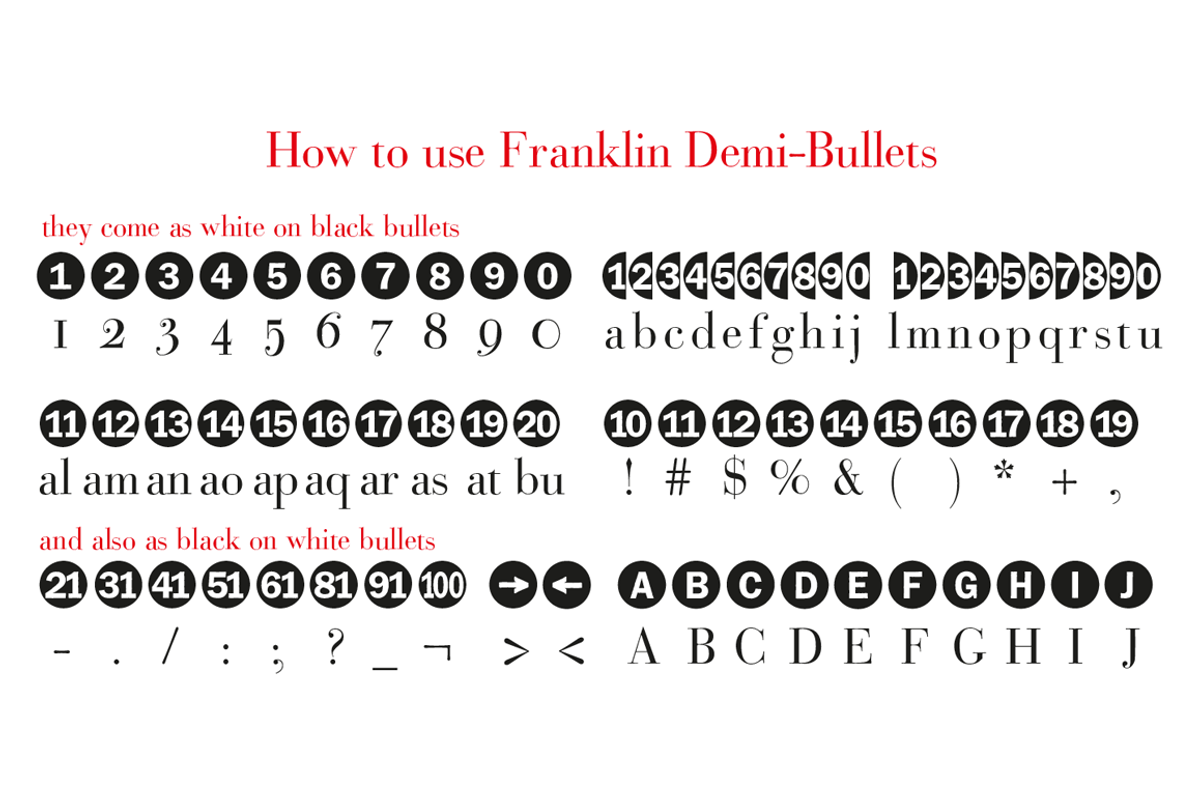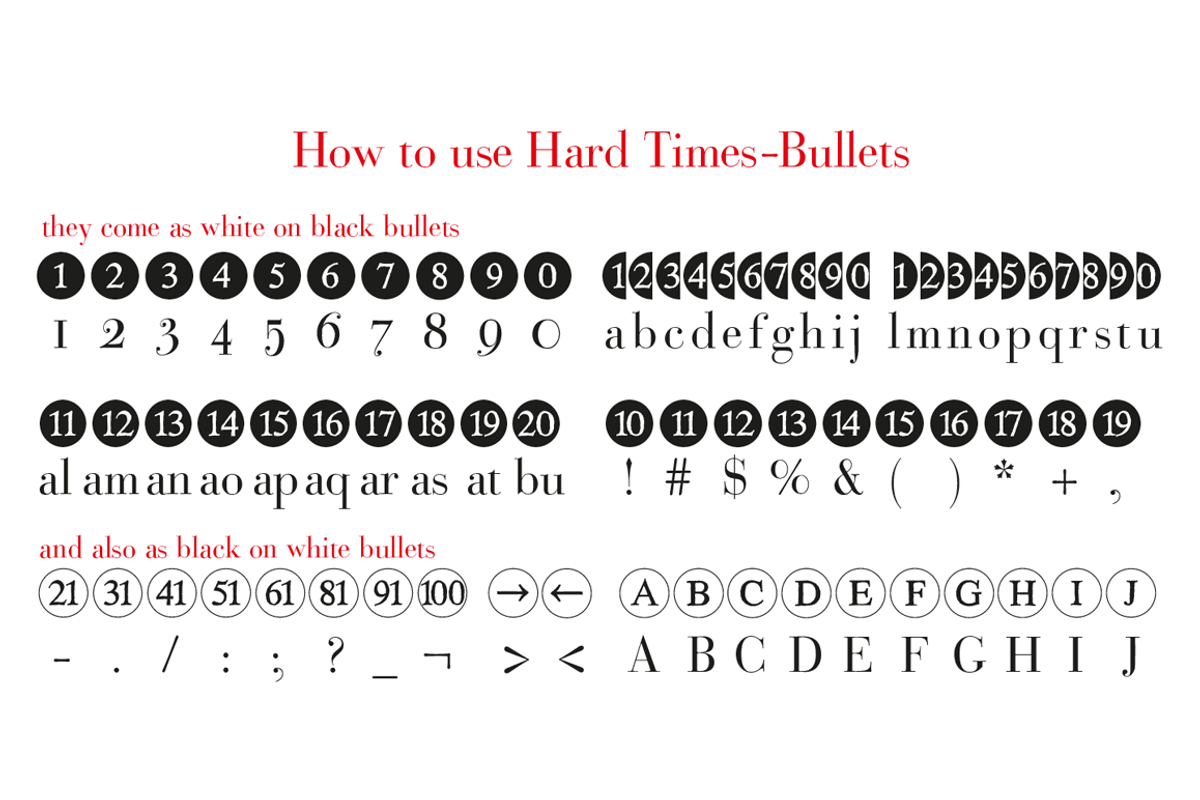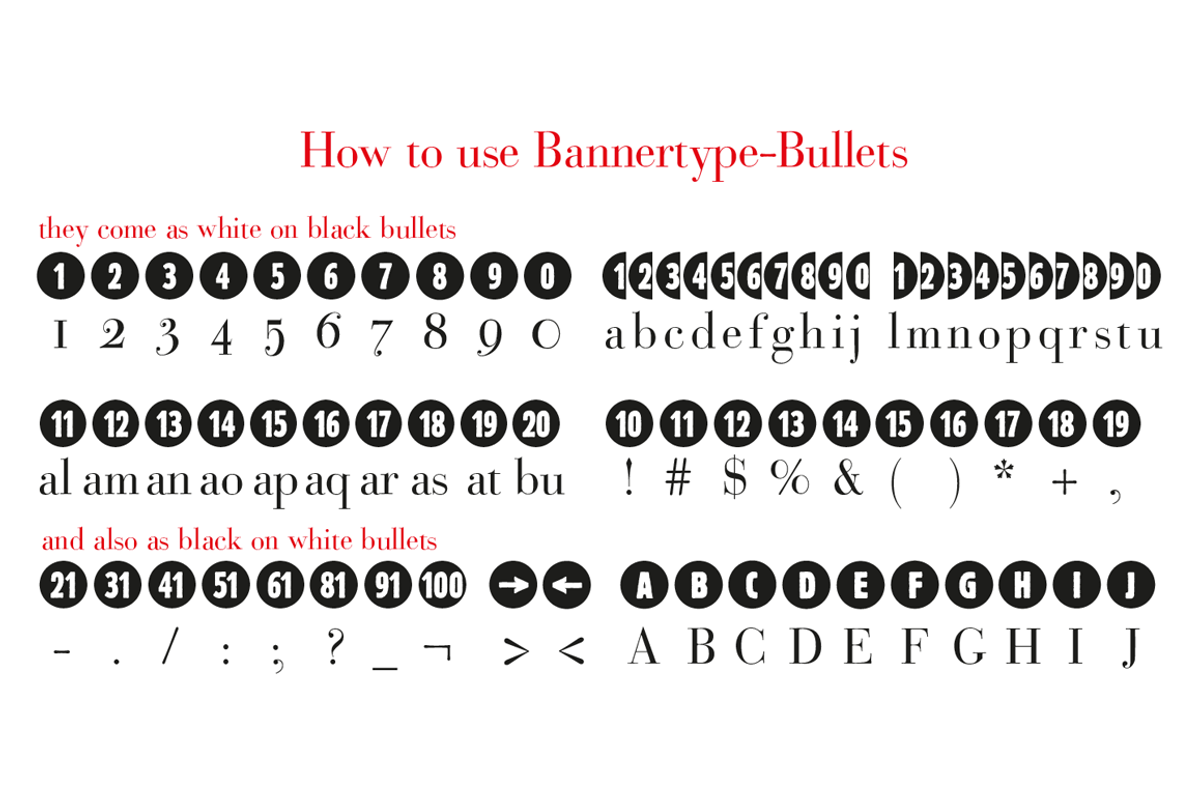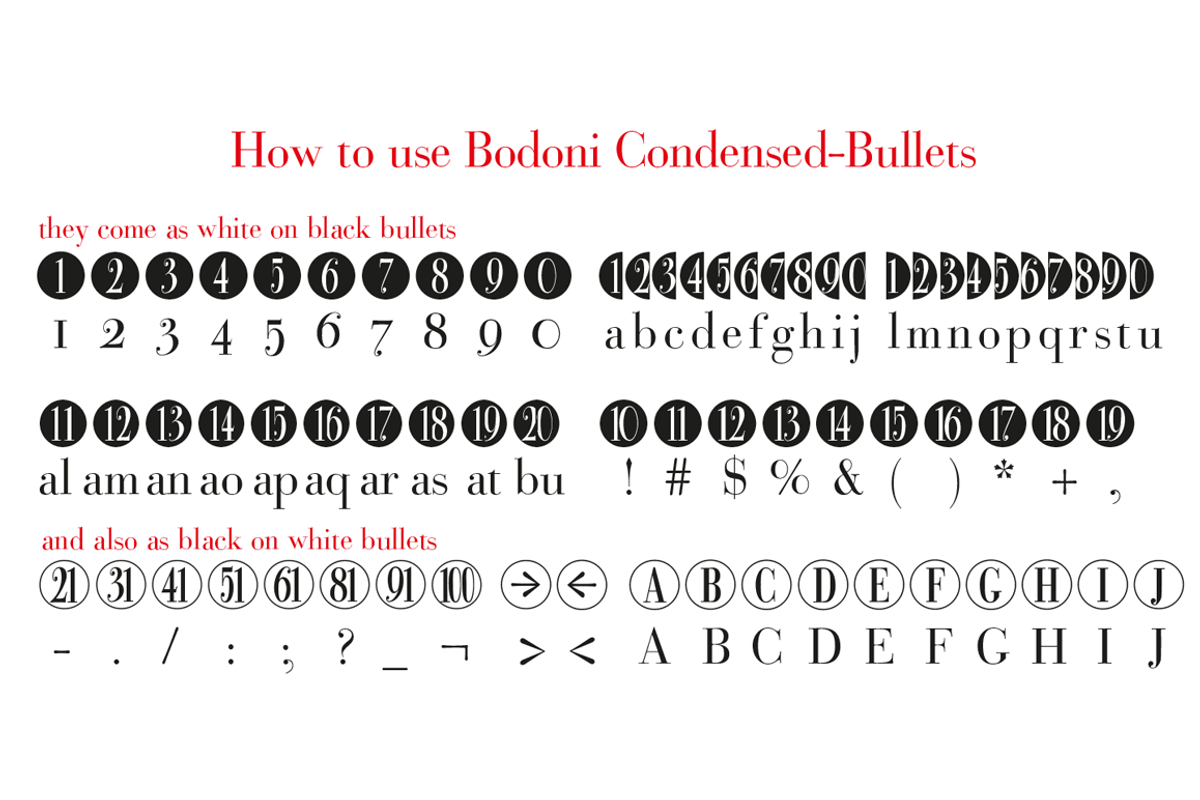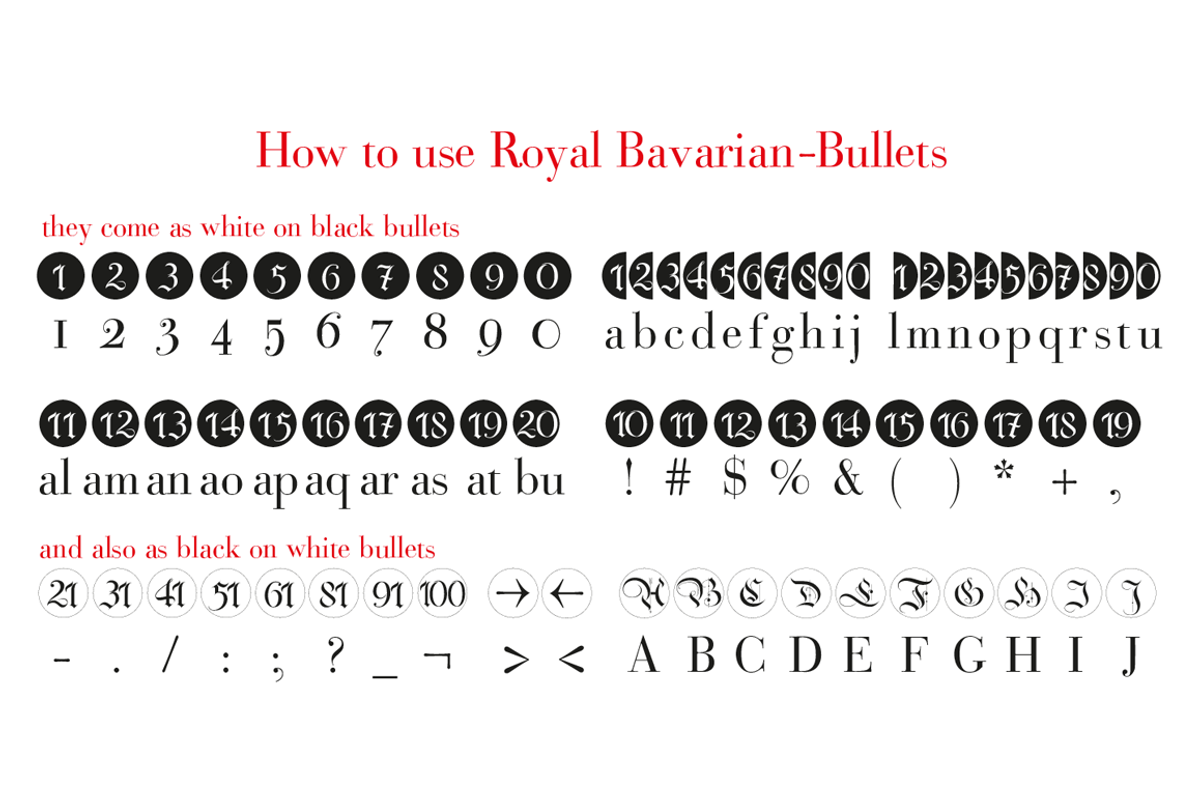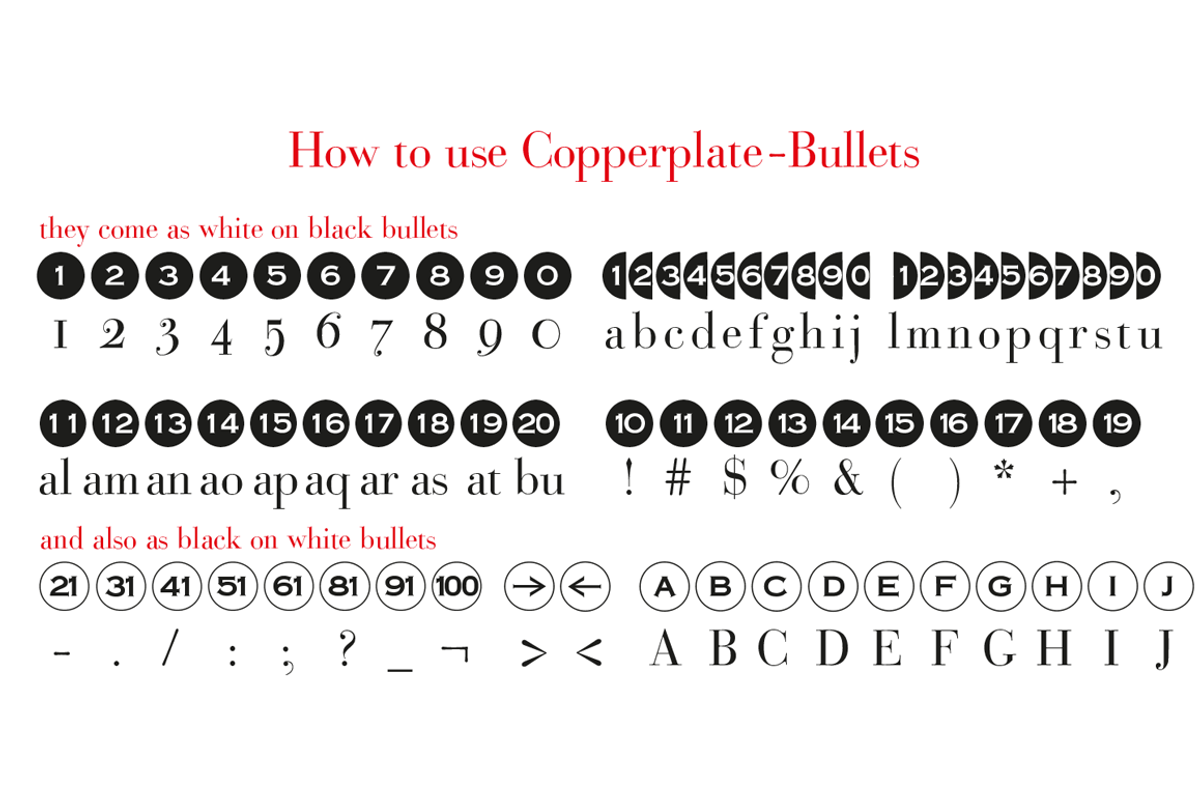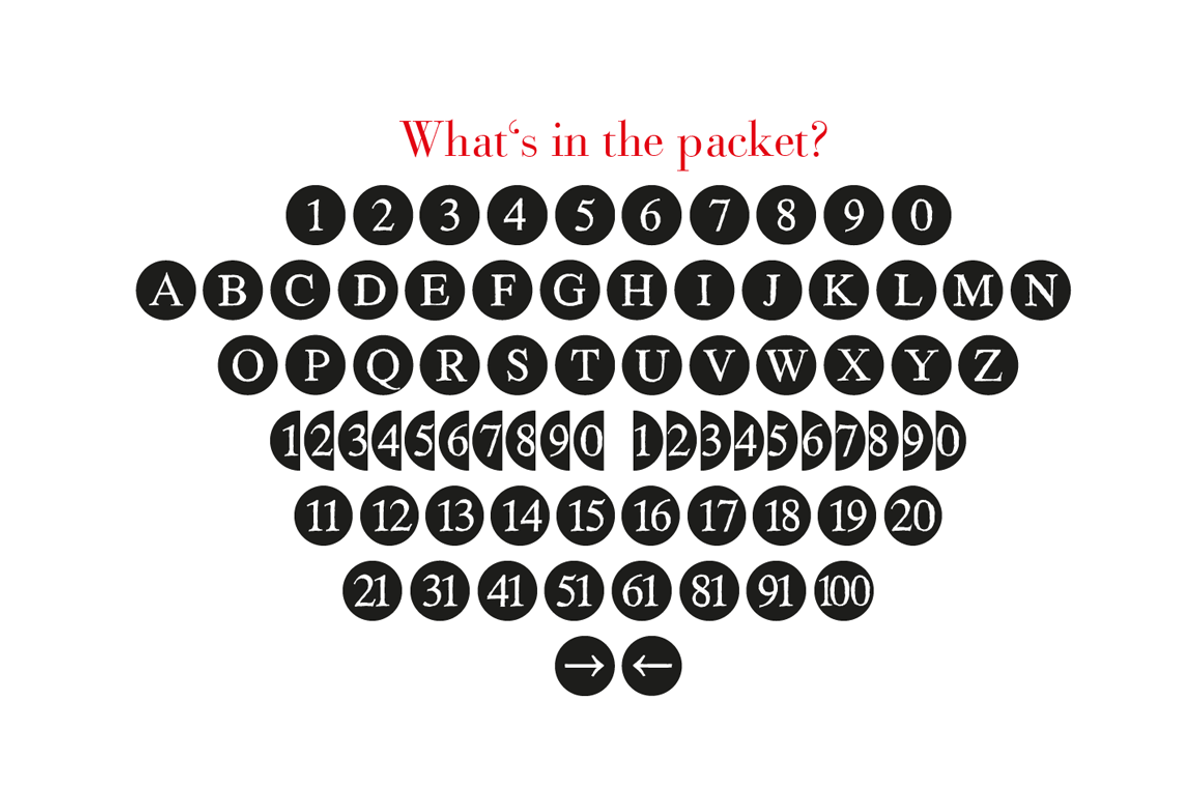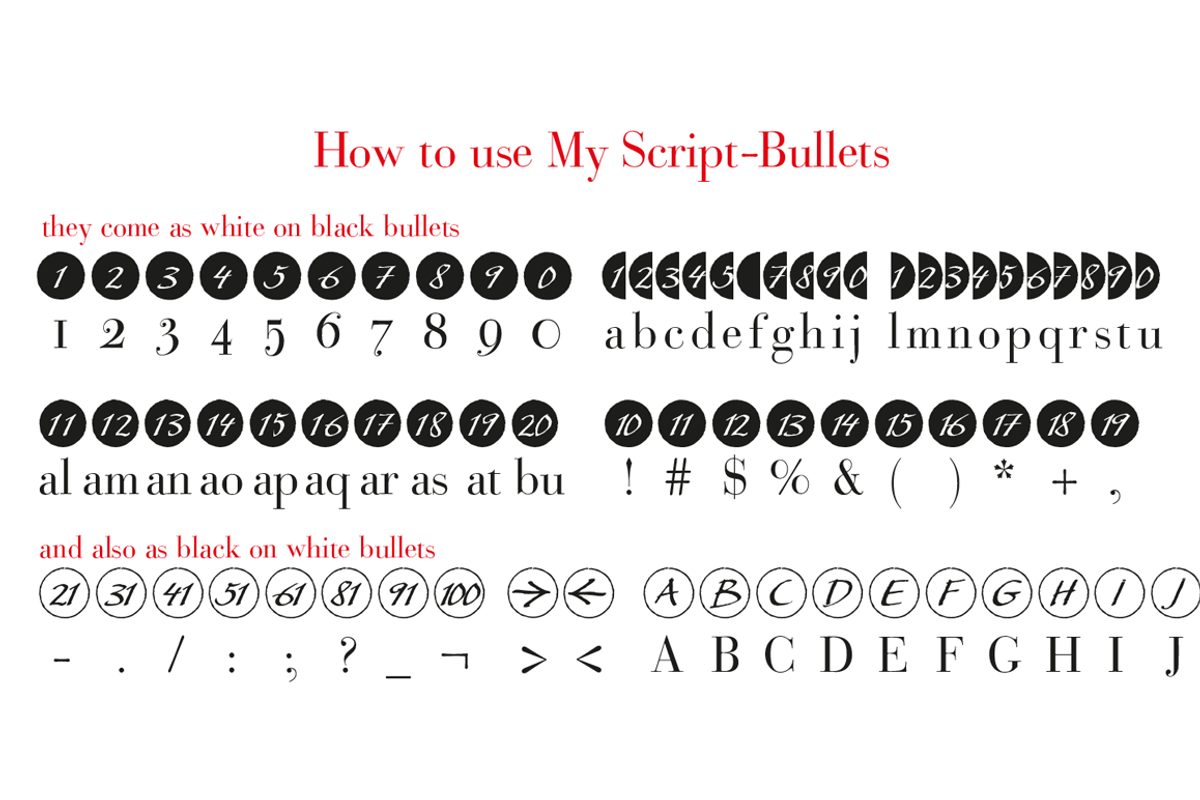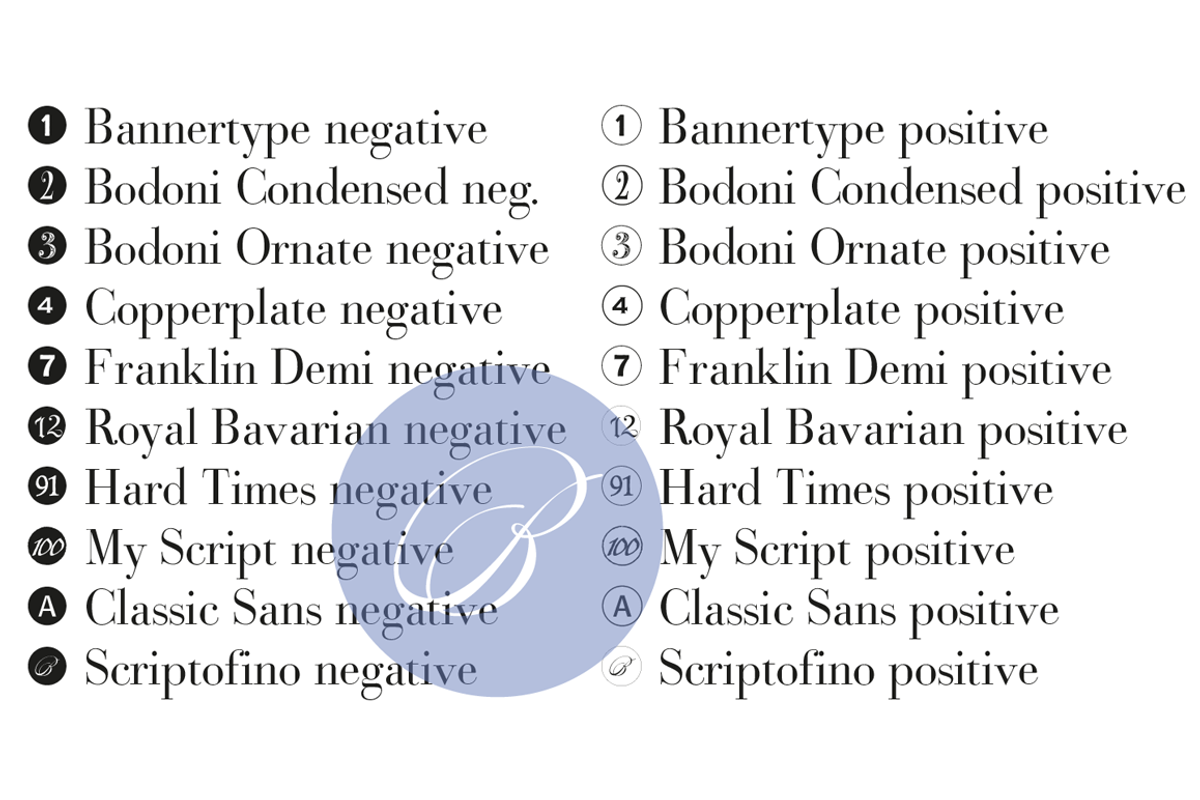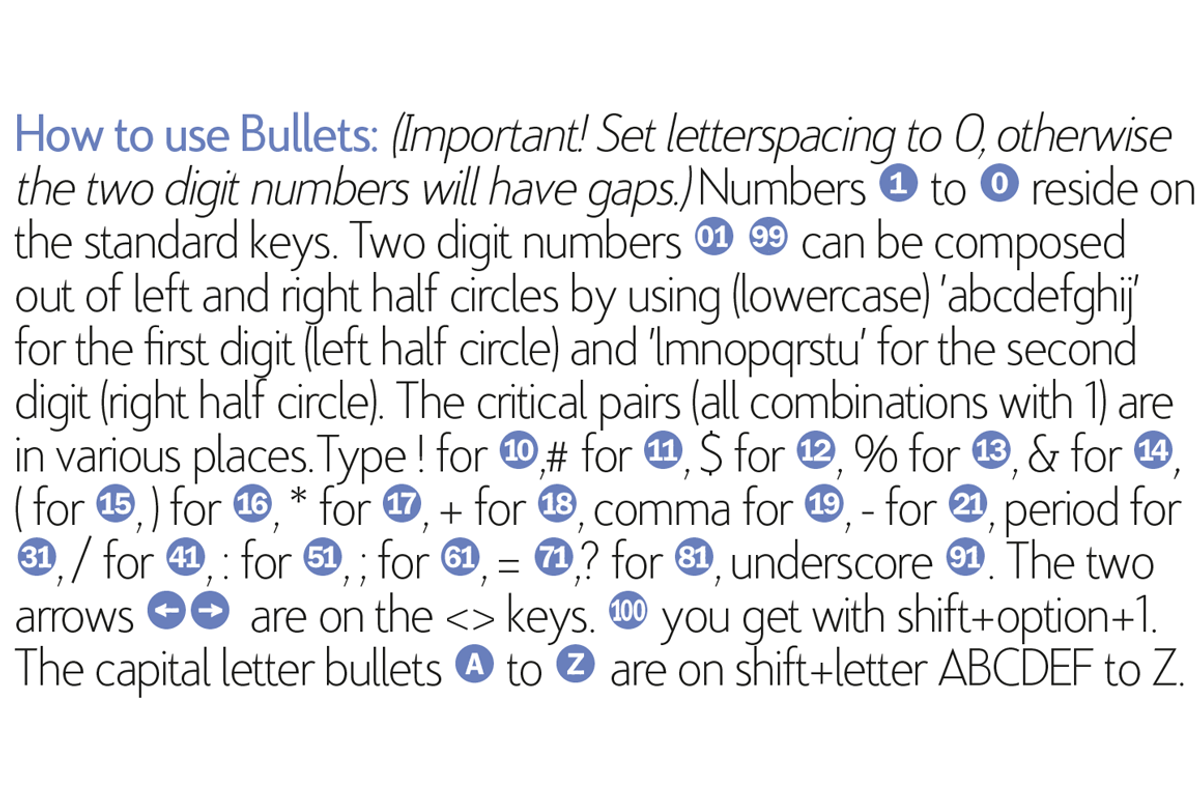
Bullets
BulletNumbers come in very handy for all kinds of lists that don't exceed 100 categories. I have long since been using my own Bullets in positive and negative and four styles, serif, sans, engravers and script, a fitting one for every occasion. Now I added six more designs and perfected the Bullets for all of you.
The following is a »must read«!
Here is how to use them: (Important! Set letterspacing to '0', otherwise the two digit numbers will have gaps!!!) The numbers 1-0 reside on the standard keys. Two digit numbers 01-99 can be composed out of left and right half circles by using (lowercase) 'abcdefghij' for the first digit (left half circle) and 'lmnopqrstu' for the second digit (right half circle). The critical pairs (all combinations with 1) can be found in various places. Type '!' for 10, '#' for 11, '$' 12, '%' for 13, '&' for 14, '(' for 15, ')' for 16, '*' for 17, '+' for 18, ',' for 19, '-' for 21, '.' for 31, '/' for 41, ':' for 51, ';' for 61, '?' for 81, '_' for 91. The two arrows are on the and keys. '100' can be found with shift+option+1. Last but not least, the capital letter bullets A-Z can be found on the shift+letter A-Z. Your very practical Gert Wiescher